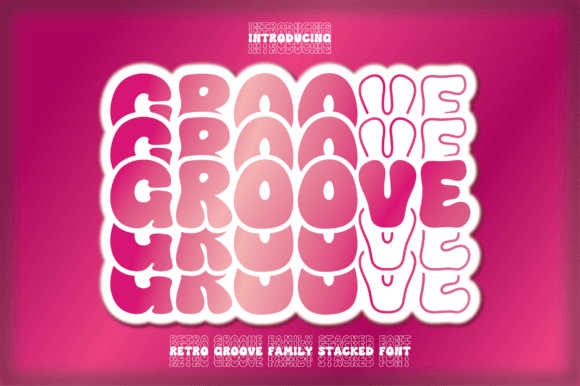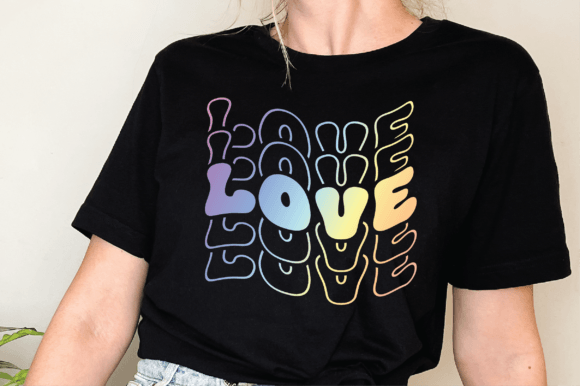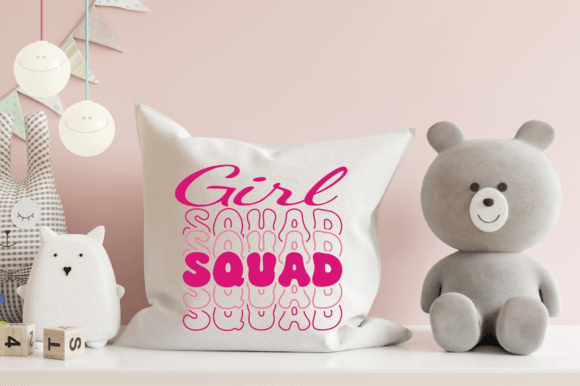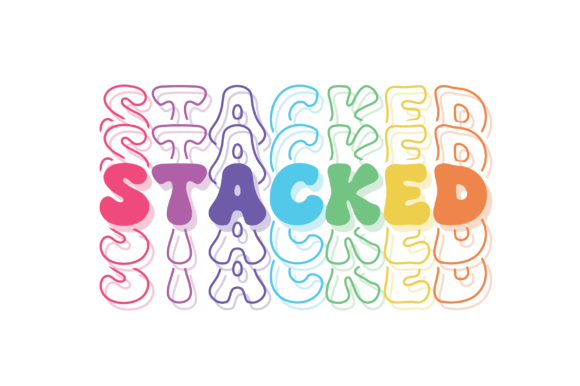
Retro Groove Stacked Font
About the Retro Groove Stacked Font
Experience the unique personality of Retro Groove Stacked Font, a font designed for impact. Retro Groove Stacked is a captivating display font that pays homage to the vibrant era of groovy designs. With bold, stacked letters, it effortlessly evokes nostalgia while adding a modern twist. Perfect for eye-catching headlines, posters, and any project in need of a touch of retro charm.
This font’s bold, stacked structure makes it ideal for headlines, posters, and branding applications requiring a strong visual impact. It’s also well-suited for short, impactful phrases on packaging or merchandise. However, its stacked nature makes it unsuitable for body text or lengthy paragraphs; readability suffers at smaller sizes. Avoid using it in UI contexts where clarity and legibility are paramount.
Retro Groove Stacked possesses a playful yet confident personality. It works best for brands aiming for a retro-inspired aesthetic with a modern edge—think vintage clothing lines, music festivals, or retro-themed restaurants. The font’s energy is best complemented by pairings such as a clean sans-serif like Montserrat for body text or a more geometric sans-serif for a sharper contrast.
Consider pairing it with a simple serif like Lora for a touch of classic elegance, balancing the retro boldness. Avoid pairing it with other heavily stylized or decorative fonts, as this will overcomplicate the design.